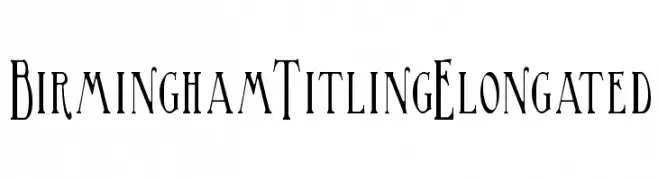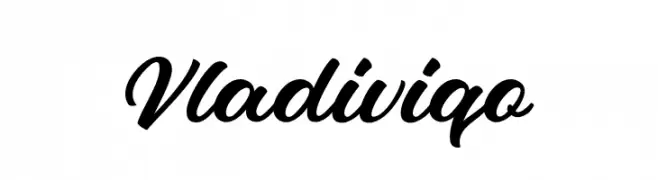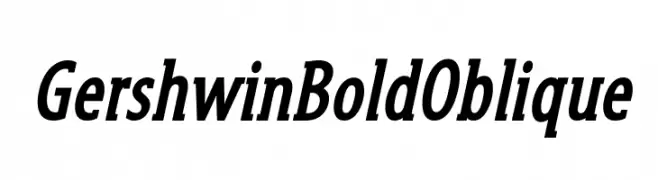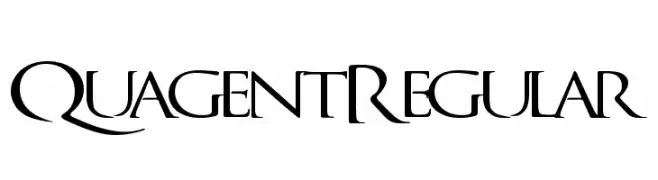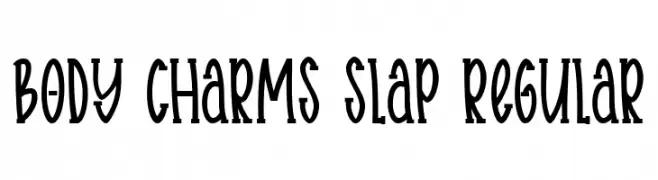
A casual, playful handwritten font with rounded edges and a slight slant.
An elongated, elegant font with decorative elements and refined letterforms.
A bold, cursive font with a smooth, flowing style.
A playful, bold font with cartoonish, dynamic characters.
A bold, oblique font with a dynamic and modern style.
A modern, artistic font with elegant curves and distinctive serifs.
A bold, angular font with a modern, aggressive style and geometric structure.
A playful, hand-drawn font with tall, narrow characters and a whimsical style.
A bold, futuristic font with geometric shapes and sharp angles.